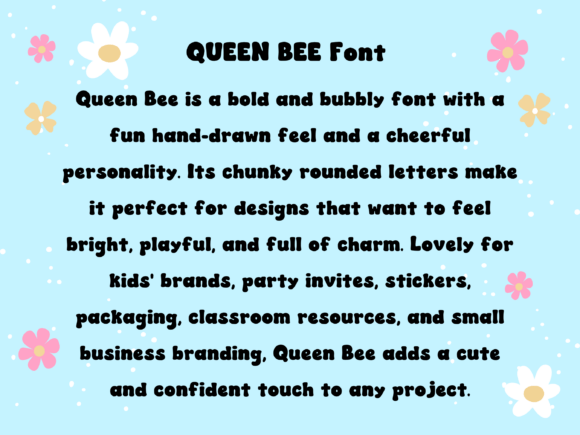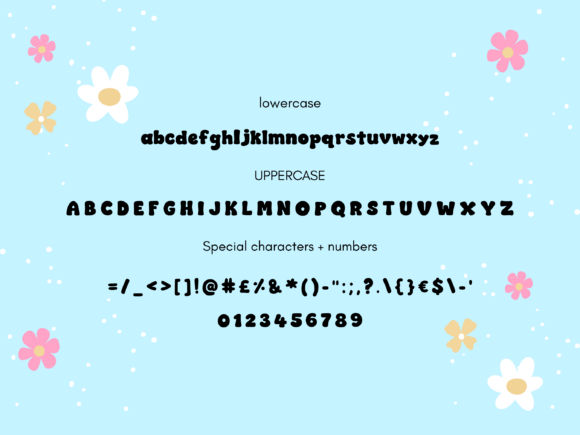
Introduction to Queen Bee Font
Introducing Queen Bee, a vibrant, bubbly font that exudes a bold stroke of playfulness coupled with a nostalgic retro charm.
Ideal for injecting personality into branding initiatives, bringing a unique flair to invitations, and adding a whimsical touch to cricut projects .
Key Features of Queen Bee Font